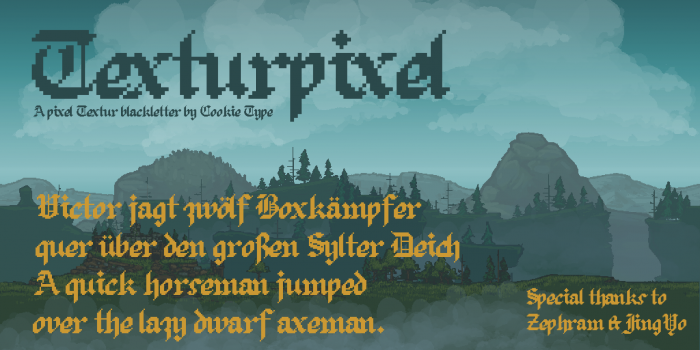
Initially, I intended this to be All Caps, but the lowercase turned out looking better than I thought. Kerning appliedß
Alternate a (a single-storey one) is on the %.
i don't know if it's just me but i find upper H a li'l hard to identify :(
@zephram, thanks, I like your C and S, so I might add your C as an alternate and implement the S. Thank you for suggestions :D
@JingYo, the thing is that I used the usual Textur H as the base for my H. I think I know how to make it more legible :D
OK, the uppercase H and S are done; zephram's variation of C is on the $ :D
@Cookielord - This is a very nice pixel font. I especially like the lowercase and numerals.
@Goatmeal, thanks a lot! Unfortunately, I did not put much time and effort into numerals--as I said before, my aim was to pixelate the Textur capitals I am so addicted to. But if you wish I can leave 'em as they are now :)